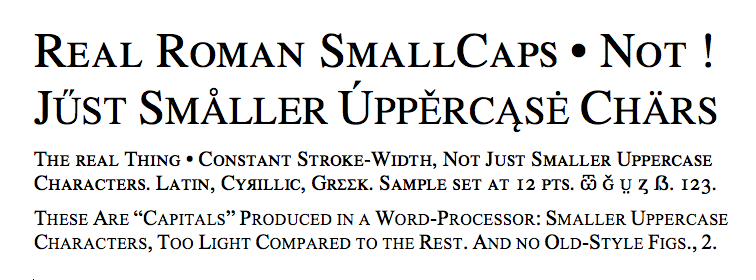
Roman SmallCaps: true small caps in a pan-European font: extended Latin character set, modern Greek, and Slavic Cyrillic - all in one package. The professional solution for high quality typesetting.
Bonus features: Punctuation, numerals, various technical and other symbols, selected Dingbats. Over 800 characters in the font.